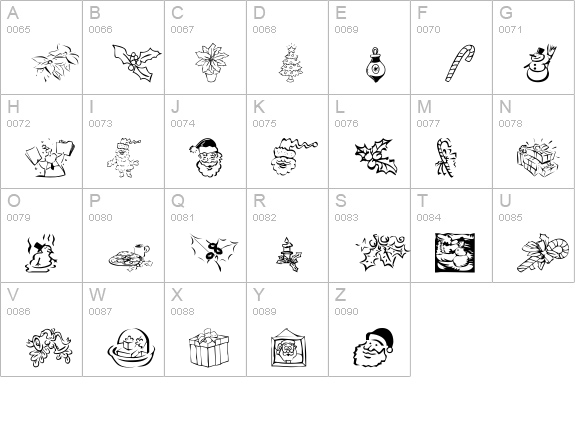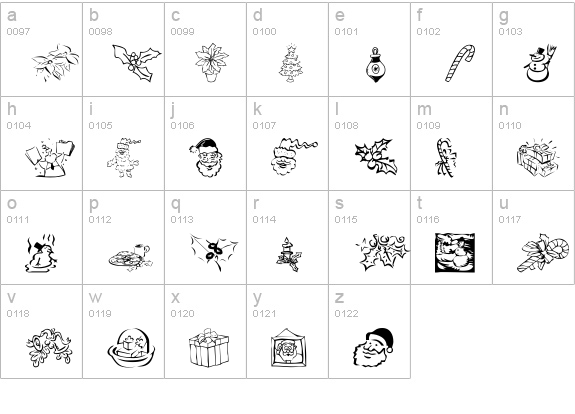
KR Christmas Dings 2004 Five Font Details
The KR Christmas Dings 2004 Five font is a festive and cheerful font perfect for adding a touch of holiday spirit to your projects. This font features a collection of Christmas-themed icons and symbols that can be used to create eye-catching designs for cards, invitations, posters, and more. From snowflakes to candy canes, this font has everything you need to bring a festive touch to your creations. Best of all, the KR Christmas Dings 2004 Five font is available for free download at FontsMarket.com. Simply visit the website to get your hands on this delightful font and start spreading holiday cheer in your designs today. Don't miss out on this wonderful opportunity to add a touch of Christmas magic to your projects with this charming and whimsical font. Download it now and let your creativity shine this holiday season!